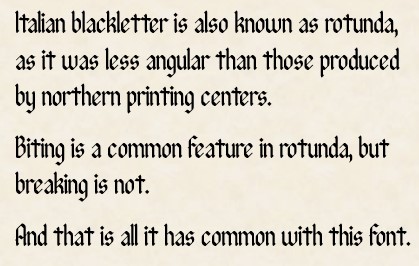
Somehow I can never judge the line width, in the FS preview it always looks thicker.
So smooth, would work great for an 90s-2000s vaguely medieval-themed video game.
Hehe, I'm glad you like it @Neoqueto. I played some games from Blizzard back then, maybe I was subconsciously influenced :-)